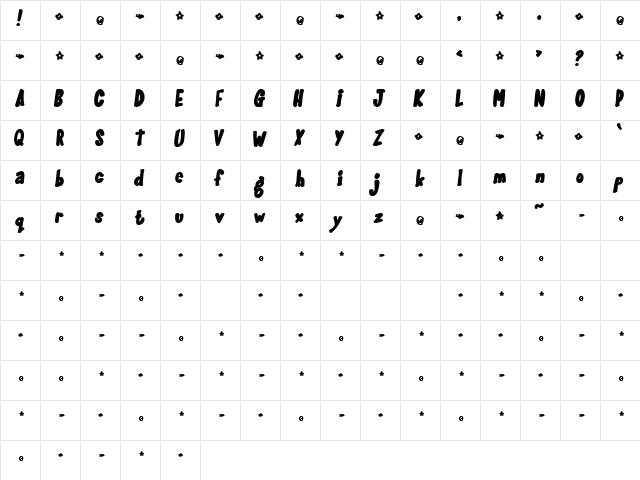
GlooGun Regular Font Preview
GlooGun Regular
Design Context for GlooGun Typeface
GlooGun is a composed and adaptable typeface that performs quietly and consistently across a wide range of design contexts.